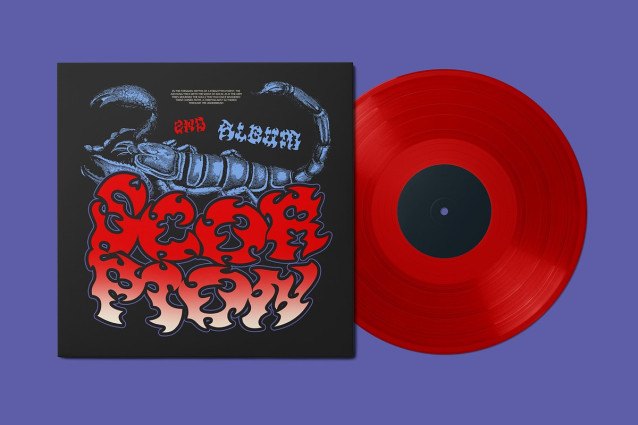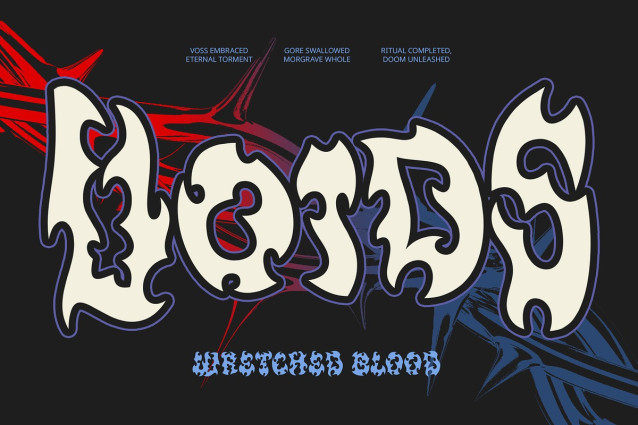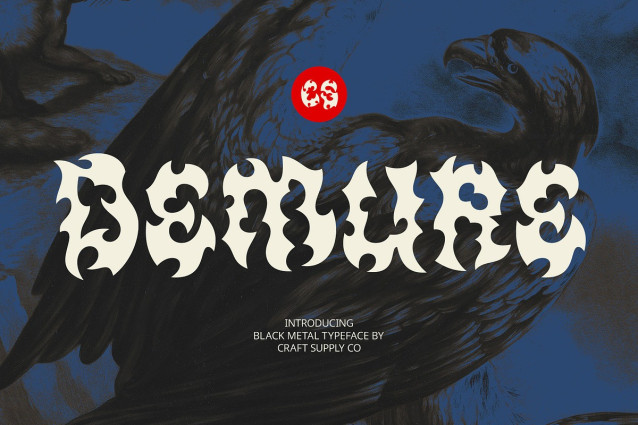
CS Demure Font
CS Demure Font is a black metal-inspired display font that unleashes a storm of sharp, jagged, and rebellious letterforms. Its extreme design reflects the intensity and chaos of underground music culture, featuring spiky strokes and irregular silhouettes that resemble symbols as much as letters.
A Dark Aura That Commands Attention Designed to embody the spirit of the black metal genre, CS Demure exudes an eerie, powerful aura. The font carries a sense of mystery, darkness, and unholy beauty, capturing the energy of the extreme music scene and channeling it into every glyph. It’s visually intense—built to dominate and haunt the viewer.
Perfect for Subculture and Horror-Inspired Projects CS Demure thrives in visual spaces that demand personality and intensity. Whether it’s band logos, horror film titles, zines, underground apparel, or anything that flirts with the macabre, this font becomes a visual voice of aggression and artistry. It elevates every project with its grim and expressive tone.
Designed for Designers Who Dare This is not a font for clean and quiet compositions. CS Demure is for designers who seek to push boundaries and provoke strong reactions. It’s about mood, rebellion, and creating an atmosphere that’s unapologetically bold. For those unafraid to scream through design—CS Demure is your weapon of choice.